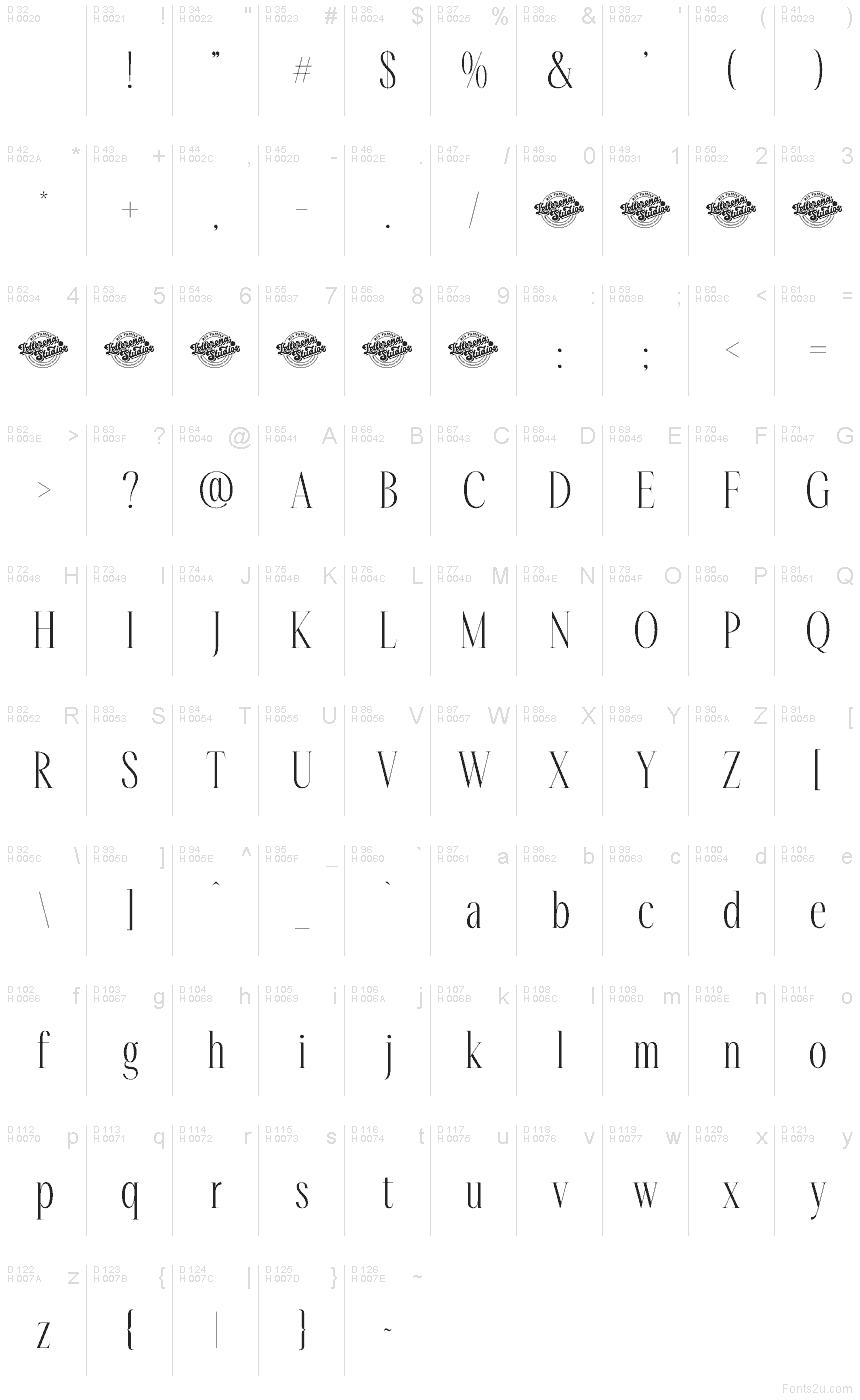
Rastofi font by Letterena Studios is a free serif typeface with a striking, runway-ready presence. Tall, slender letters stretch upward with inky verticals, then taper into hairline strokes that feel almost drawn with a calligrapher’s pen. The rhythm is smooth and deliberate, giving every word a poised, editorial grace that immediately pulls the eye toward it.
Using Rastofi, headlines feel like mastheads and short phrases read like luxury labels. This free font shines on fashion branding, beauty packaging, lookbooks, posters, magazine covers, and elegant invitations where a touch of drama is welcome. Pair it with a quiet geometric sans for body text and let Rastofi stay large and spacious so its refined contrast and sculpted curves can really breathe.